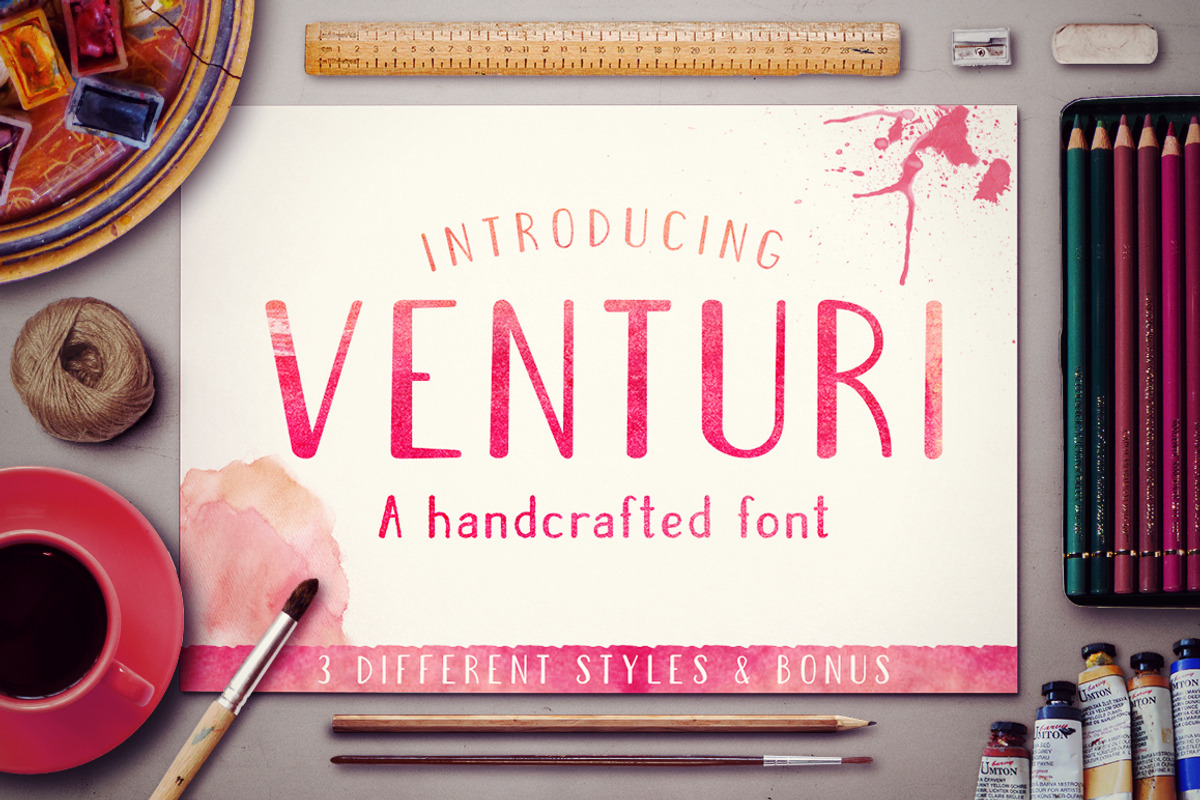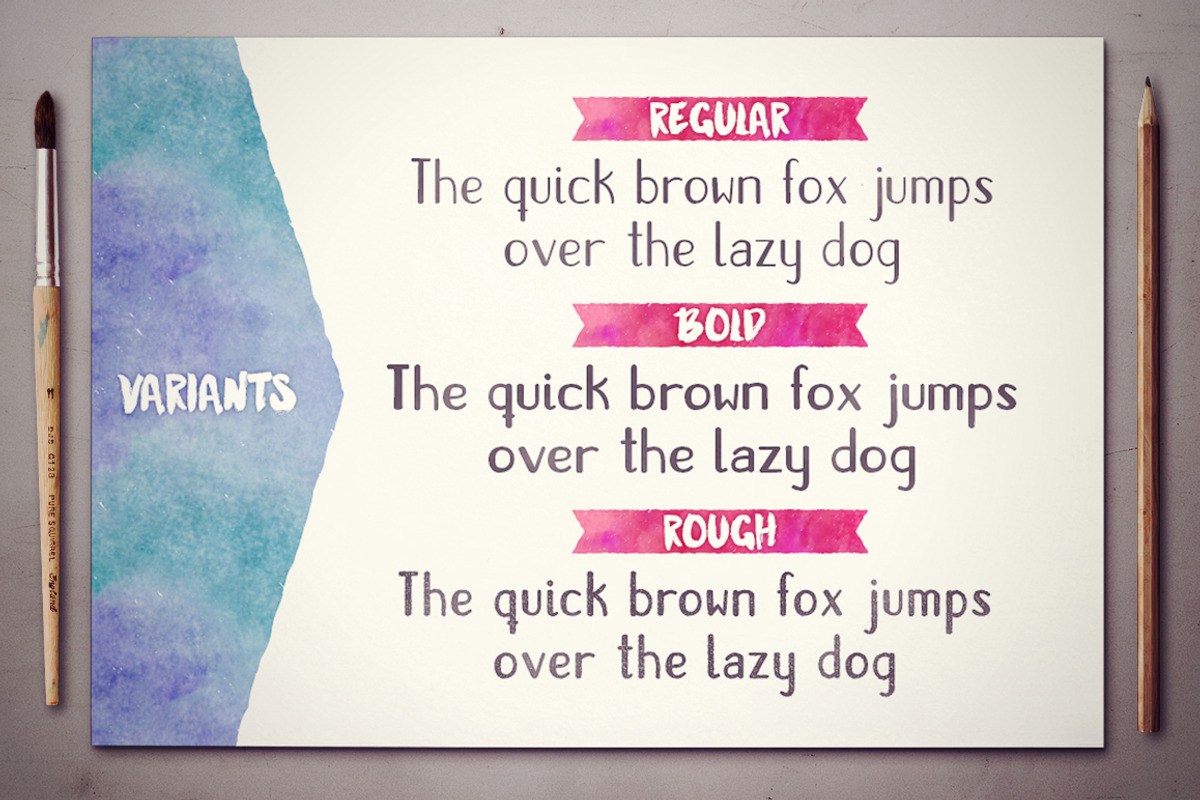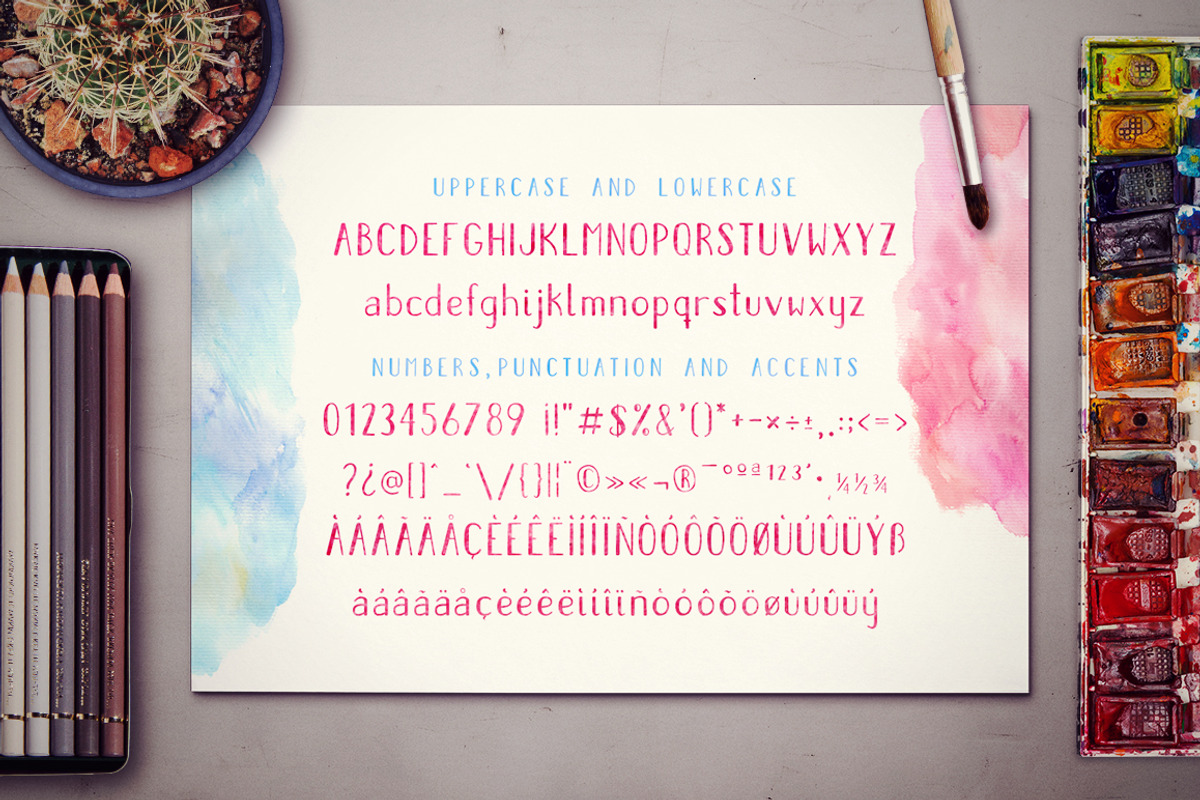
Venturi Typeface + Bonus
Venturi Typeface + Bonus by DesigNoa is a font selected for branding, posters, packaging, typography.
- 3 Styles: Venturi, Venturi Bold and Venturi Rough.
- Uppercase.
- Lowercase.
- Numerals.
- Accents.
- Punctuation.
- Venturi Regular
- Venturi Bold
- Venturi Rough
Why Venturi Typeface + Bonus is worth a look
Venturi Typeface + Bonus by DesigNoa fits naturally into Branding, posters, packaging, typography.